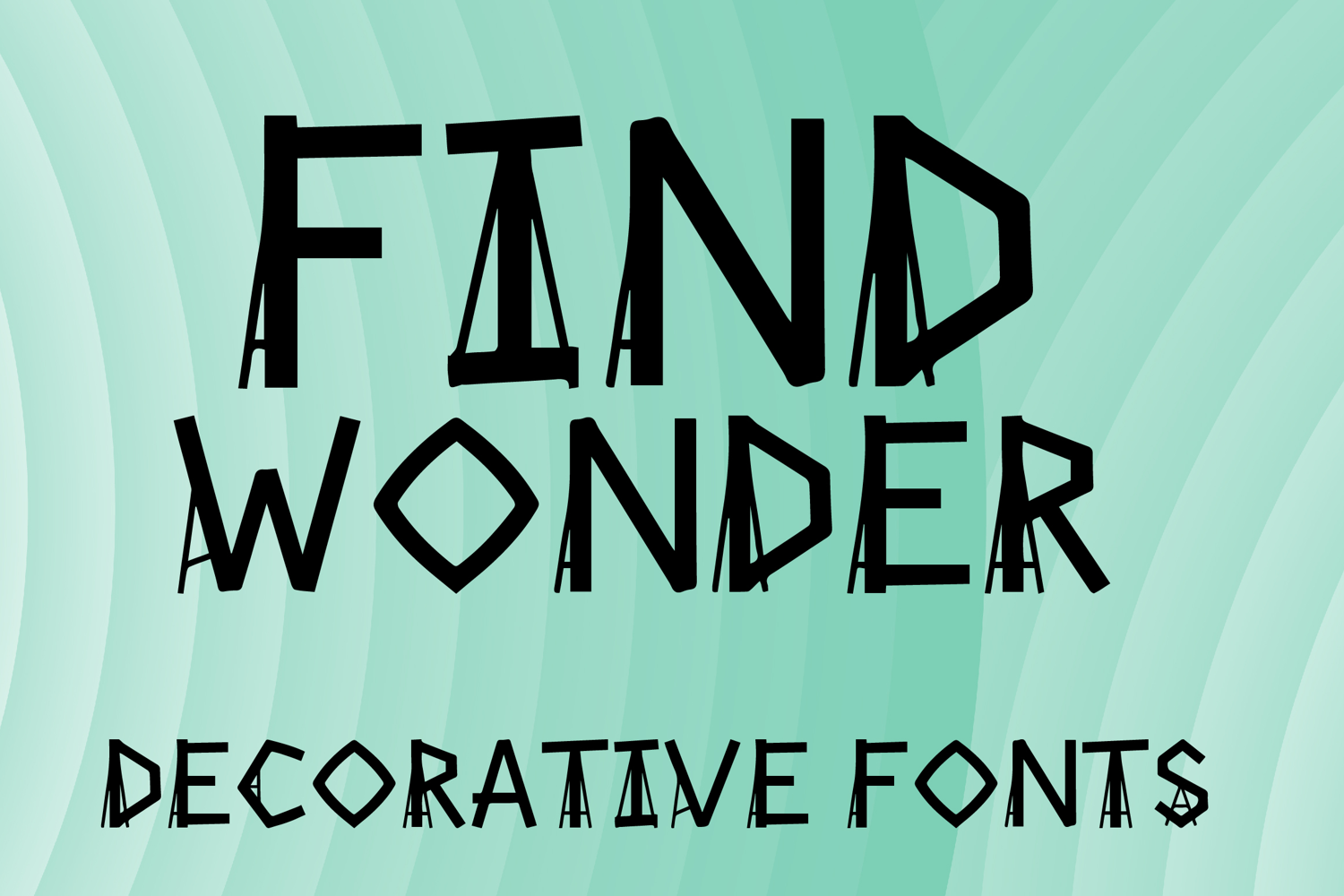
FIND WONDER
FIND WONDER is a bold decorative display font with a quirky handcrafted style and artistic geometric charm. Its uppercase letterforms feature tall irregular shapes, angular lines, diamond-inspired forms, and playful uneven details that create a striking, creative, and eye-catching look. Designed with uppercase letters A–Z and numbers 0–9, FIND WONDER is perfect for branding, posters, packaging, book covers, logos, social media graphics, and creative projects that need a unique and memorable statement.
FIND WONDER